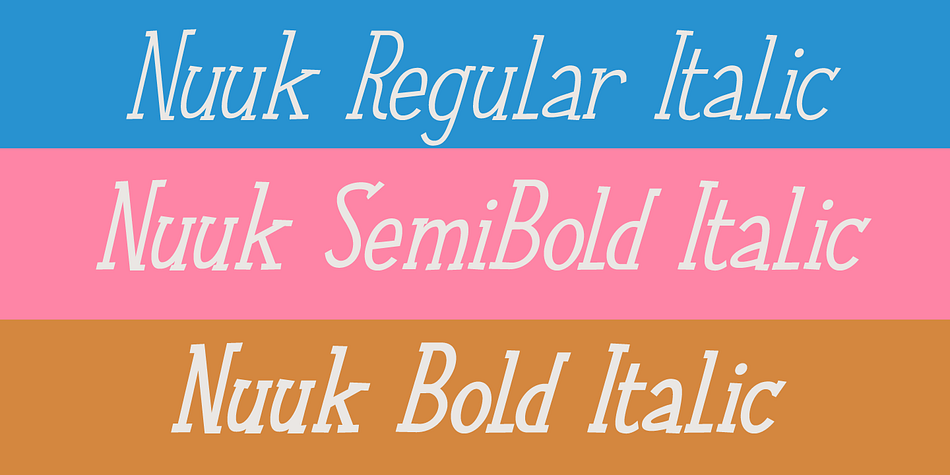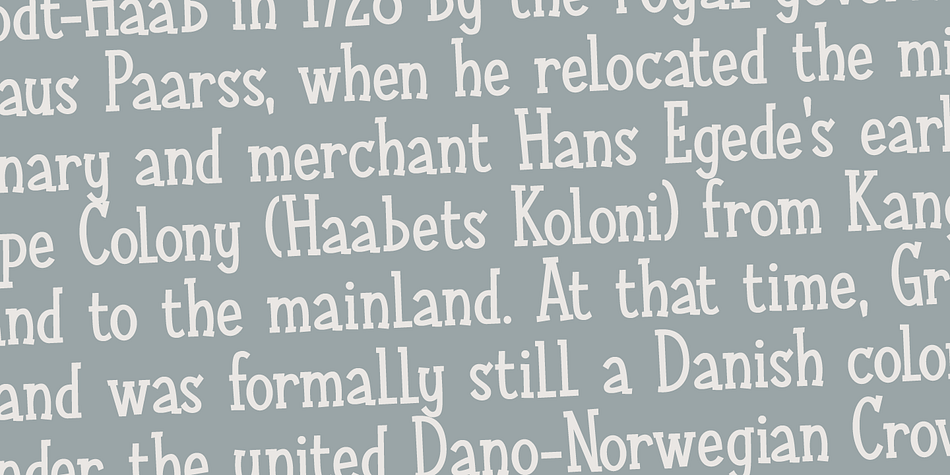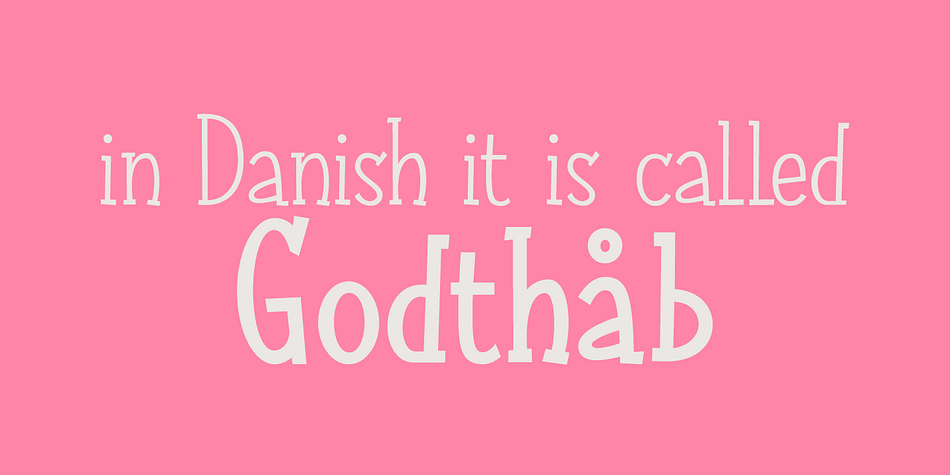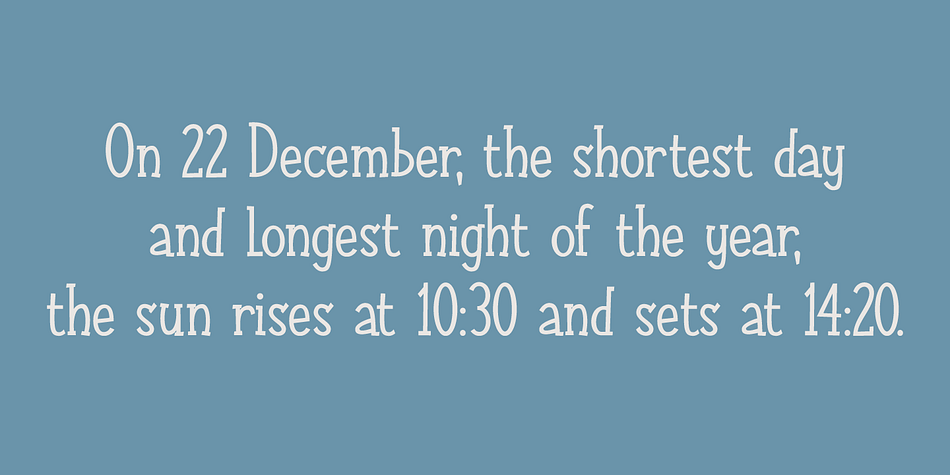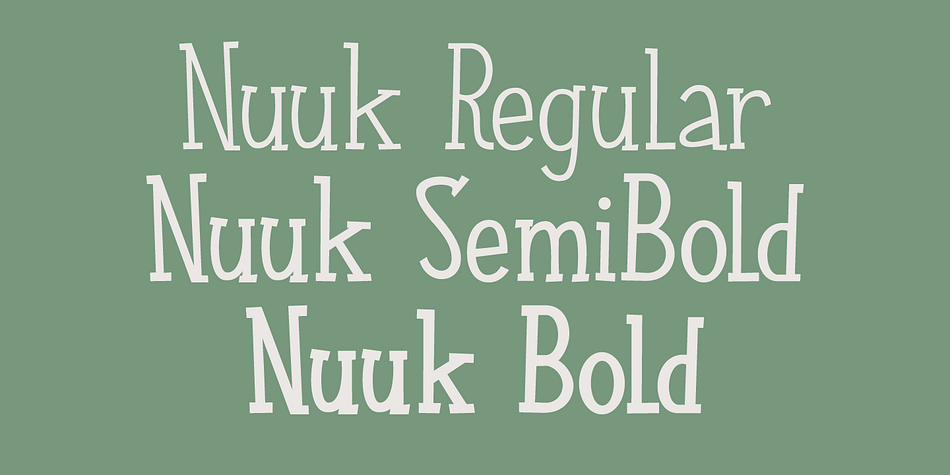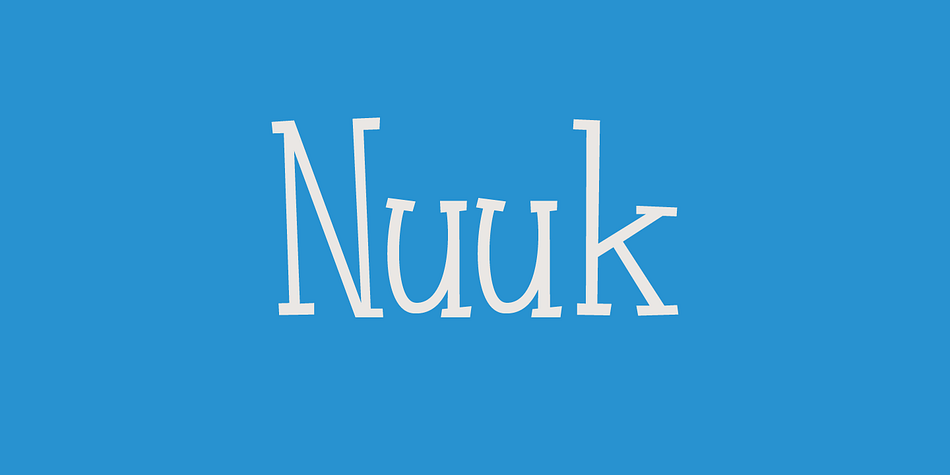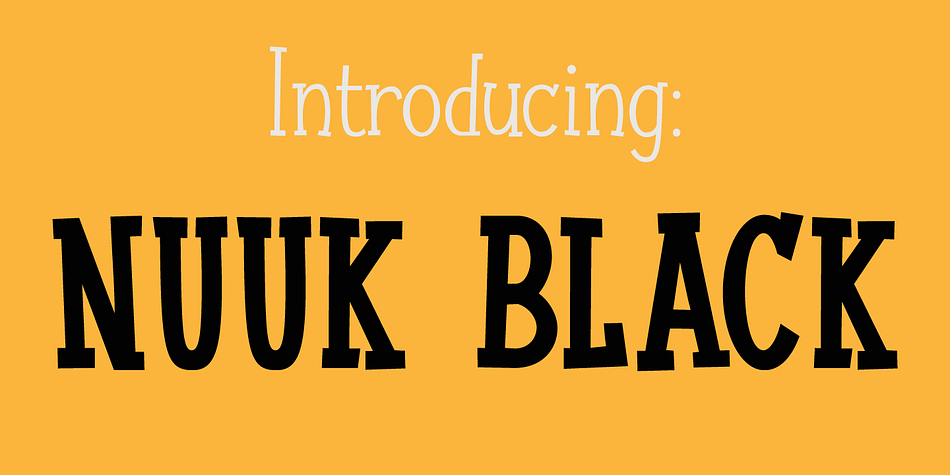
Designed by David Kerkhoff, Nuuk is a hand drawn font family. This typeface has eight styles and was published by Hanoded.
Nuuk is the capital of Greenland. It is the Kalaallisut word for “cape”. I really like the sound of it, so I just had to name this font Nuuk.
Nuuk is a whimsical, handmade serif font. It comes in four weights, each weight with its own Italic style.